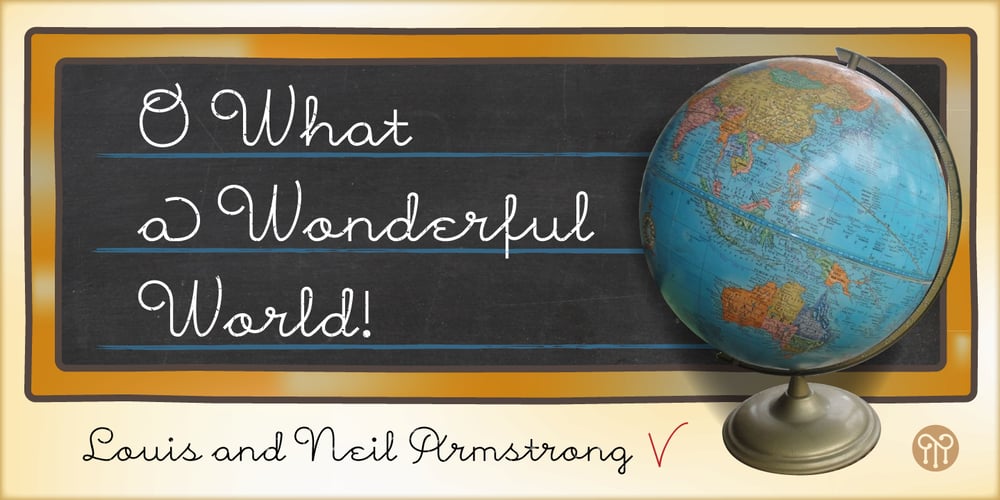
Morenita Font Family was designed by John Moore and published by John Moore Type Foundry. Morenita contains 4 styles and family package options. Morenita is a script letter style, very basic geometric construction which refers to the style and the Art Deco glory, designed to provide a highly readable. It comes in two weights, Regular and Bold, italic versions both comes equipped with terminals and final words or tails in ways very easy to apply glue. Ideal for creative banner ads, versatile and readable form makes it’s ideal to creating logos or marks or create modern invitations, children’s publications or interesting or video or film credits. His look goes from vintage to contemporary.